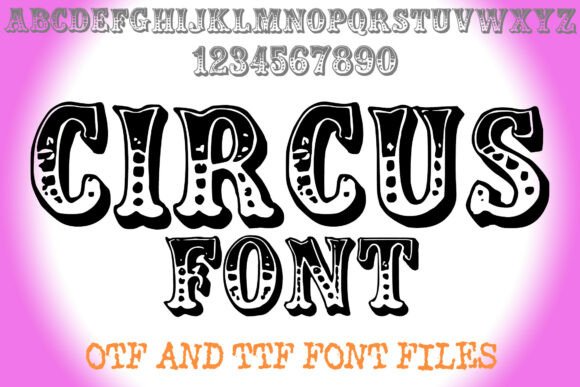
Circus Font
Circus Font is a vintage-inspired decorative typeface that captures the bold spirit of classic carnival and big top posters. With ornate detailing, quirky proportions, and a theatrical flair, it’s perfect for circus-themed events, signage, fun logos, and retro-style branding that demands attention.